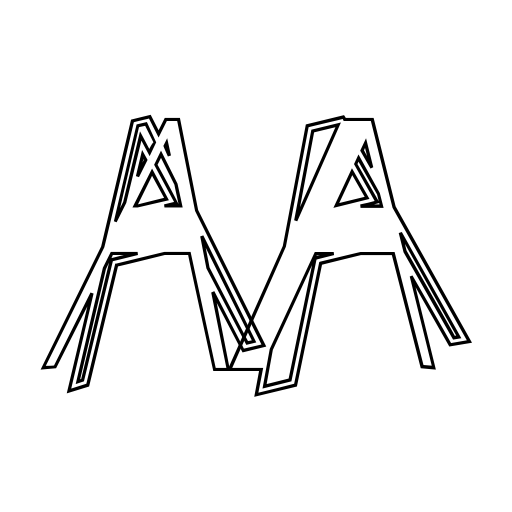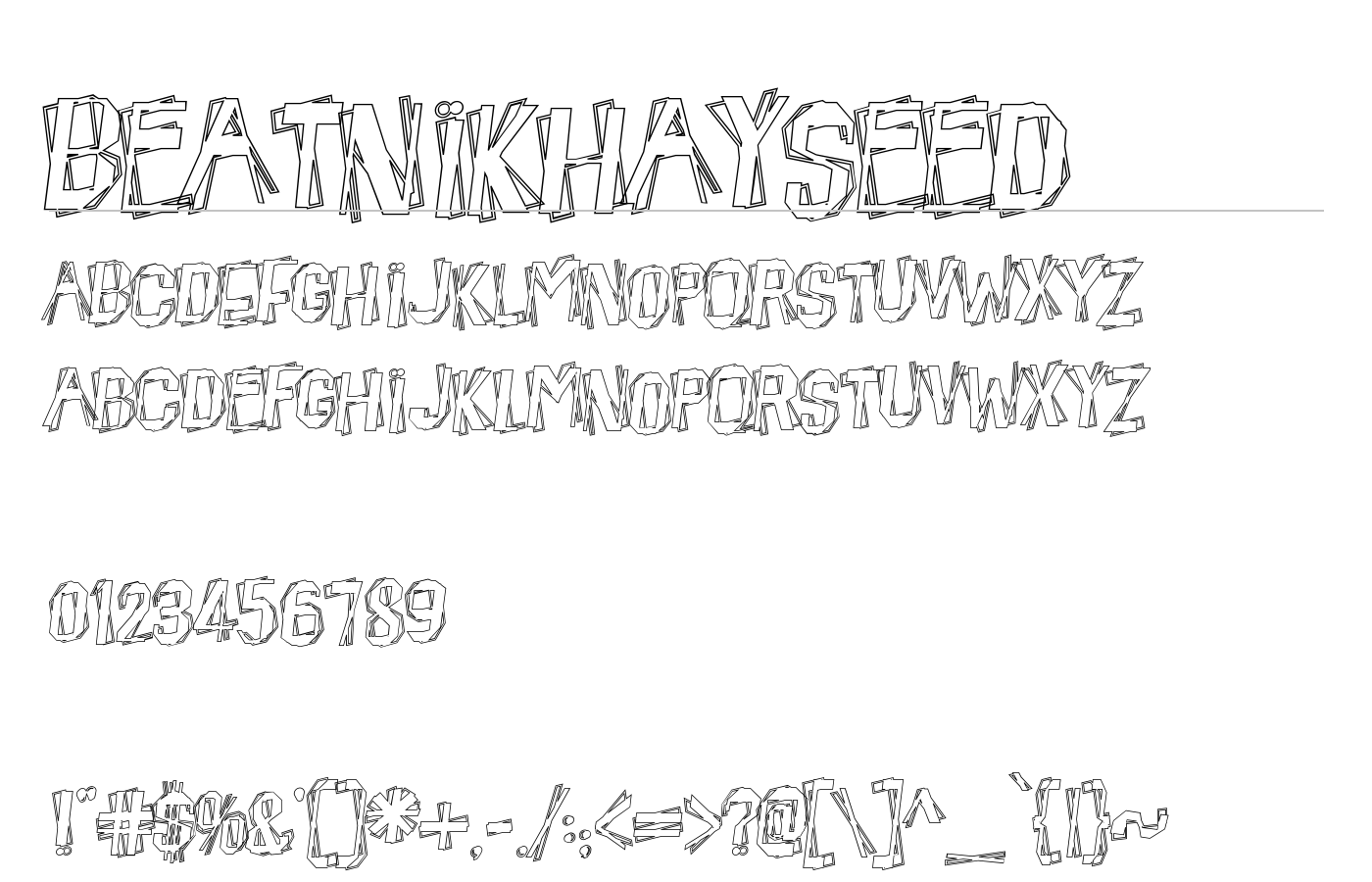
BeatnikHayseed is a playful and edgy sans serif font featuring irregular, jagged letterforms with a hand-drawn, sketch-like quality. Its uneven strokes and slightly condensed shapes give it an energetic, unconventional vibe that works well for creative, informal projects such as posters, logos, and artistic branding. This font adds a raw, expressive character that suits youthful, quirky, or countercultural moods.
BeatnikHayseed Font